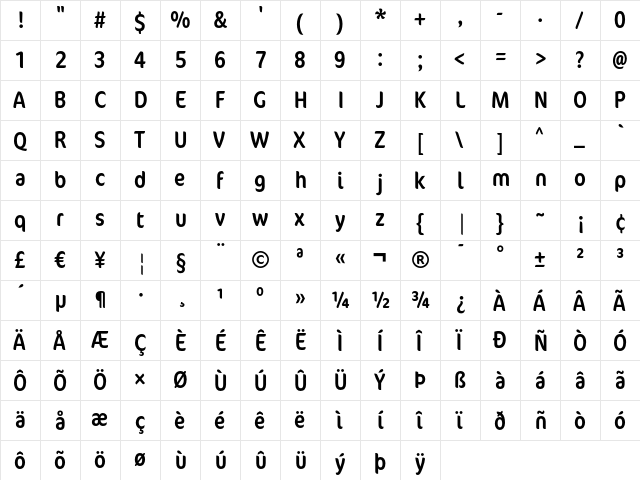
Cocon RegularCondensed
Design Context for Cocon Typeface
Cocon takes a measured approach to typography — its balanced proportions and neutral character make it a reliable workhorse for both digital and print work. Its narrow stance lets it pack a punch even in space-constrained designs.
Pro Tip: Pair Cocon with a font of contrasting weight or personality to build a more expressive typographic hierarchy.